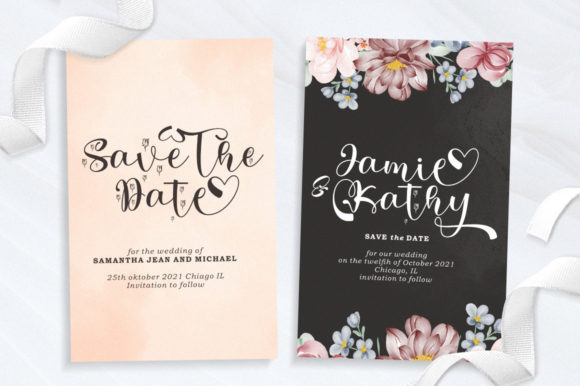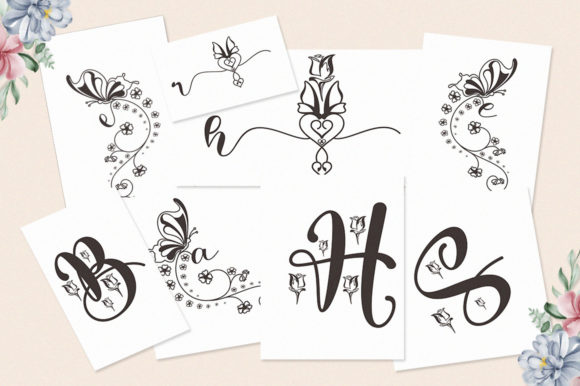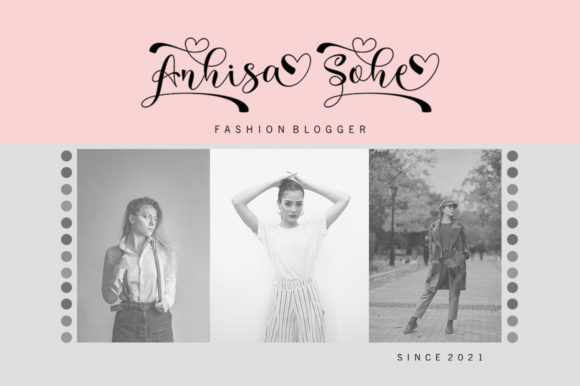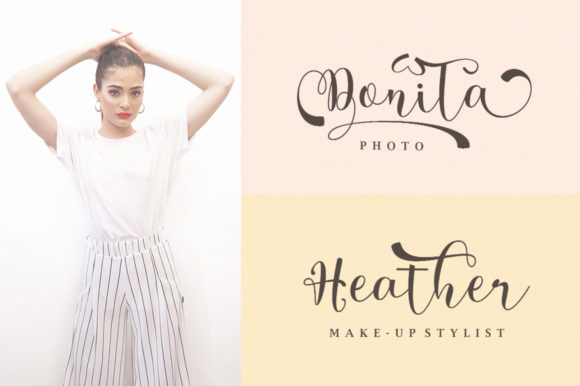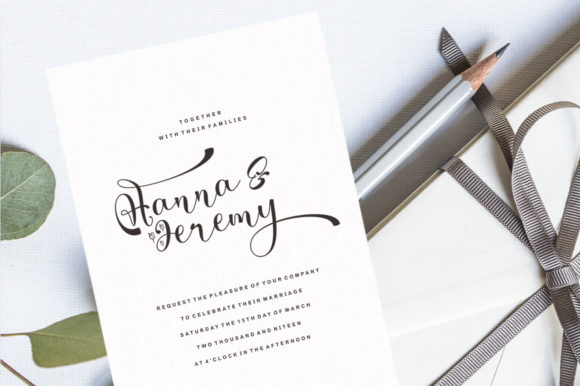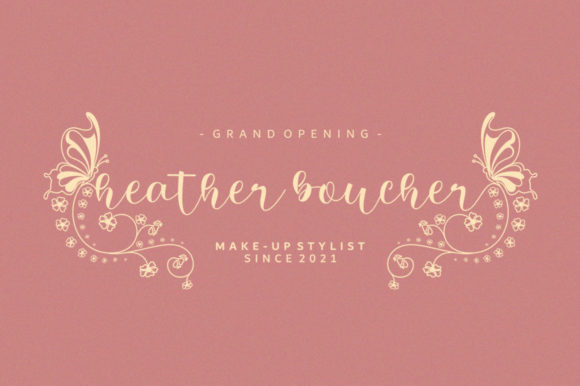
Introducing Adelishia Script Font: Elevate Your Designs with Elegance
In the world of typography, script fonts hold a special place for their elegance, sophistication, and ability to add a personal touch to any design. Among these, the Adelishia Script Font stands out for its delicate and unique design, making it a perfect choice for designers and crafters looking to infuse their projects with a bespoke feel. Whether you’re working on wedding invitations, thank you cards, quotes, greeting cards, logos, or business cards, Adelishia Script is poised to elevate your designs to new heights.
What Makes Adelishia Script Font Special?
Adelishia Script is not just another script font; it’s a carefully crafted typeface designed to bring a touch of elegance and sophistication to your designs. Its delicate strokes and unique flair make it an outstanding choice for any project that requires a customized touch. Here are a few features that set Adelishia Script apart:
- Delicate and Unique Design: Adelishia Script boasts a design that is both delicate and uniquely captivating. Its elegant strokes are perfect for creating visually appealing text that stands out.
- Versatility: This font is incredibly versatile, suitable for a wide range of design projects including wedding invitations, thank you cards, quotes, greeting cards, logos, and business cards.
- PUA Encoded: Adelishia Script is PUA (Private Use Area) encoded, which means you can easily access all the glyphs and swashes. This feature allows for greater flexibility and creativity in your designs, enabling you to customize your text with intricate details and flourishes.
Applications of Adelishia Script Font
The applications of Adelishia Script Font are vast and varied. Here are some of the most popular uses:
Wedding Invitations and Stationery
For wedding planners, designers, and couples looking for that perfect font to adorn their wedding invitations, Adelishia Script is an exquisite choice. Its elegant and delicate design sets the tone for a sophisticated and memorable event.
Digital and Print Media
In the realm of digital and print media, Adelishia Script can be used to create stunning quotes, greeting cards, and thank you cards that leave a lasting impression on the reader. Its unique design ensures that your message stands out in a sea of generic fonts.
Branding and Logos
For businesses looking to create a brand identity that exudes elegance and sophistication, Adelishia Script can be a valuable asset. Its unique design makes it perfect for logos, business cards, and other branding materials that require a touch of class.
Tips for Using Adelishia Script Font
To make the most out of Adelishia Script Font, here are a few tips:
- Pair with Complementary Fonts: When using Adelishia Script in your designs, consider pairing it with fonts that complement its elegance. A simple sans-serif or serif font can work well for body text.
- Experiment with Swashes: Take advantage of the PUA encoding to experiment with different swashes and glyphs. This can add a unique touch to your designs and make them more personalized.
- Consider the Color Scheme: Adelishia Script looks stunning in metallic colors, pastels, and rich jewel tones. Choose a color scheme that complements the theme of your design.
| Font Name | Adelishia Script Font |
| Author | Sp Studio |
Adelishia Script Font is a versatile and elegant typeface that can add a customized touch to any design project. Its delicate design, combined with PUA encoding for easy access to glyphs and swashes, makes it a valuable resource for designers and crafters. Whether you’re working on wedding invitations, logos, or greeting cards, Adelishia Script is sure to elevate your designs and leave a lasting impression on your audience.
So why settle for ordinary fonts when you can add an extra layer of elegance and sophistication to your designs? Explore the possibilities with Adelishia Script Font today and discover how it can transform your creative projects.